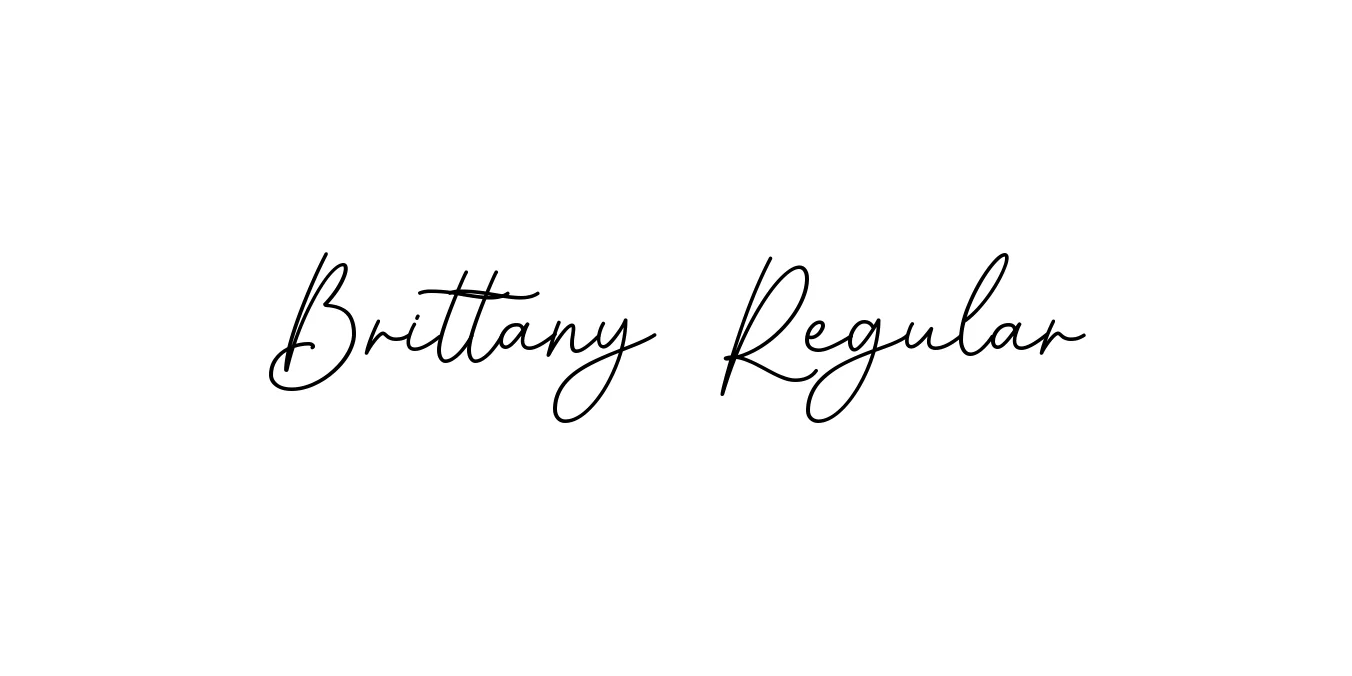
Brittany Regular
Designed by Creatype Studio
| Category | Script / Signature |
| Designer | Creatype Studio |
Brittany Regular is a sophisticated and elegant signature script font designed by Rian Rahardi of Creatype Studio. It features a natural, fluid flow that mimics real handwriting, providing an authentic and high-end aesthetic. This font has gained immense popularity in the design world for its ability to add a personal and feminine touch to various creative projects.
Characterized by its expressive strokes and stylish ligatures, Brittany Regular is meticulously crafted to ensure smooth connections between letters. It includes a full set of uppercase and lowercase letters, numerals, and punctuation, making it a versatile tool for designers looking to achieve a luxury brand identity or a bespoke handwritten look.
Brittany Regular Best Uses
Ideal for creating high-end logos and personal signature identities.
Perfect for professional watermarks and artistic photo overlays.
Excellent for invitations, save-the-date cards, and place cards.
Great for creating stylish Instagram quotes and aesthetic blog headers.